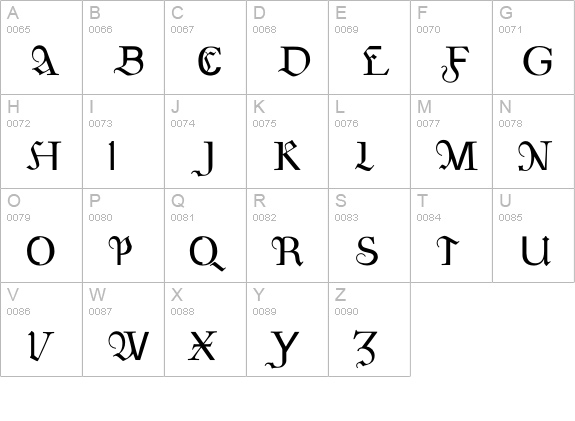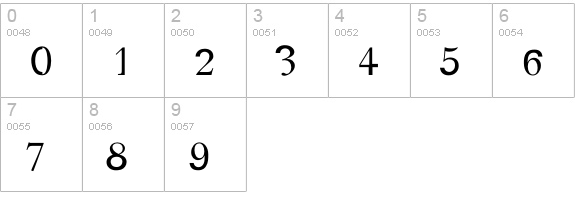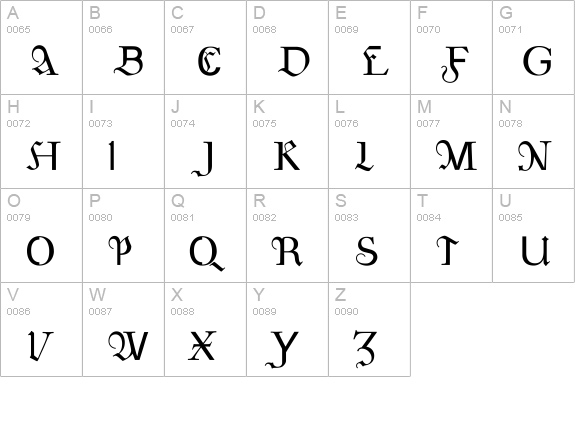
AFHybrid Font Details
Introducing AFHybrid font, a versatile typeface that seamlessly blends traditional and modern elements to create a unique and eye-catching design. This font exudes a perfect balance of sophistication and playfulness, making it suitable for a wide range of design projects. With its clean lines and stylish curves, AFHybrid font adds a touch of elegance to any text or headline. What sets AFHybrid font apart is its adaptability - it can be used in both formal and informal settings, making it ideal for various applications such as branding, advertising, packaging, and more. Whether you're looking to create a sleek logo or a dynamic poster, this font has got you covered. And the best part? AFHybrid font is completely free! Yes, you read that right - you can download this exceptional font at no cost from FontsMarket.com. Don't miss out on the opportunity to enhance your designs with this stunning typeface. Download AFHybrid font today and take your projects to the next level!